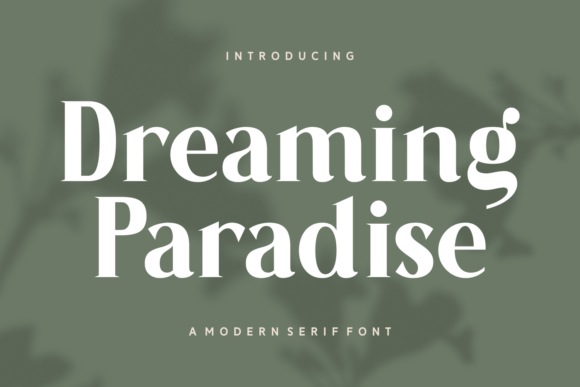
The Perfect Typography for Your Creative Vision
Have you ever been so inspired by a font that it sparks a creative fire within you? I know I have. For me, it was the moment I stumbled upon the Dreaming Paradise Font. Its clean lines, elegant curves, and subtle details transported me to a world of endless possibilities.
As a modern serif font, Dreaming Paradise is designed to evoke a sense of sophistication and refinement. Its versatility makes it perfect for branding, editorial design, lifestyle blogs, and marketing visuals. Whether you’re a seasoned designer or just starting out, this font is sure to become a trusted companion in your creative journey.
What sets Dreaming Paradise apart is its ability to balance structure and artistry, making it a valuable addition to any designer’s toolkit. With its soft elegance and subtle details, it’s the perfect choice for designers looking to create visually stunning and memorable designs.
Dreaming Paradise Font Key Features
- Unique Characteristics: Dreaming Paradise Font features a unique blend of Asian and European styles, with intricate details and ornate flourishes
- Font Weight: The font comes in three weights: Light, Regular, and Bold, allowing for a range of design options
Dreaming Paradise Font Review
I recently had the chance to work with the Dreaming Paradise Font, and overall, I was quite pleased with its performance. Here are some of the things that stood out to me: ✨
- Unique Character: The font’s distinctive design and flair really add a touch of personality to any project. I found it to be particularly effective in creating a whimsical atmosphere.
- High-Quality Typography: The font’s lines are crisp and clean, with a nice balance of width and spacing that makes it easy to read.
- Wide Range of Languages: I was happy to see that the font supports a wide range of languages, making it a versatile choice for global projects.
That being said, there are a few limitations to consider: ⚠️
- Limited Customization Options: While the font’s design is certainly unique, I found that it can be a bit challenging to customize it to fit specific design requirements.
- Not Ideal for Formal Settings: Due to its playful nature, I wouldn’t recommend using this font in formal or professional settings where a more conservative design is desired.
Overall, I think the Dreaming Paradise Font is a great choice for designers looking to add some visual interest to their projects. Just be mindful of its limitations, and you’ll be golden!
For optimal results, pair the Dreaming Paradise Font with a complementary color scheme and design style.
Common use cases include wedding invitations, event branding, and lifestyle magazine layouts.